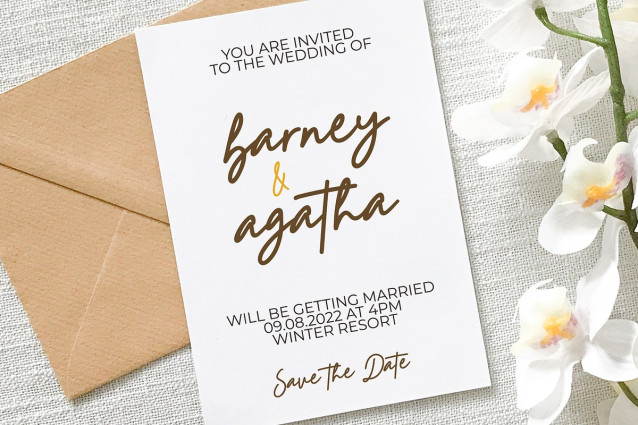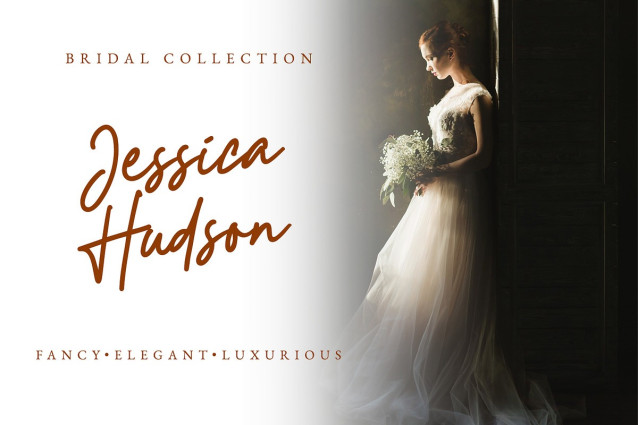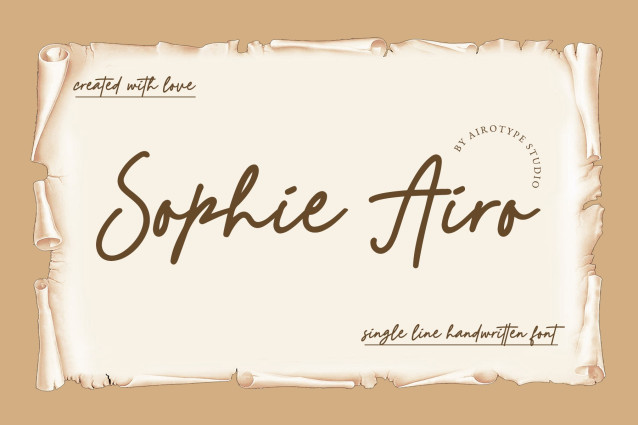
Sophie Airo Font
Sophie Airo Font is monoline signature font. This font is fancy, chic, and simple. It is casual and simple font, which can be used for wide ranges of design projects, especially designs that need signature handwritten and elegant touch.
Sophie is perfect font for any projects, such as wedding invitation, signature, greeting card, t-shirt design, crafting, sticker, sublimation, and many more.